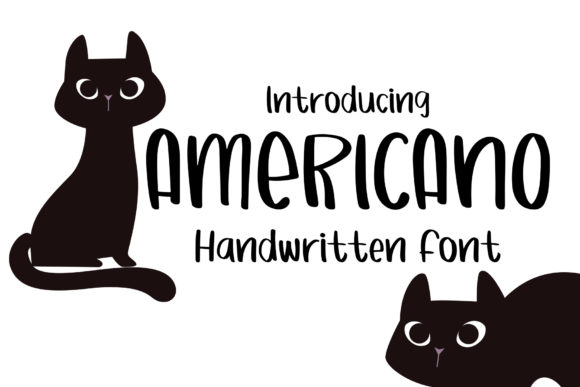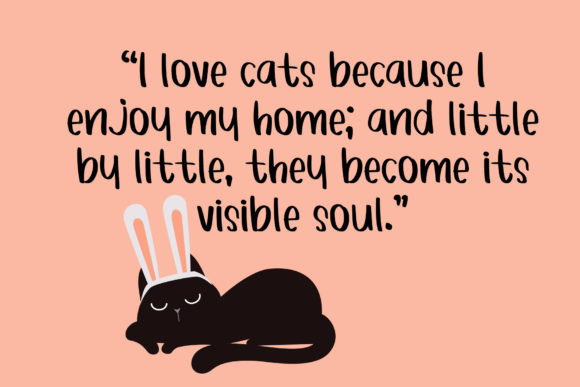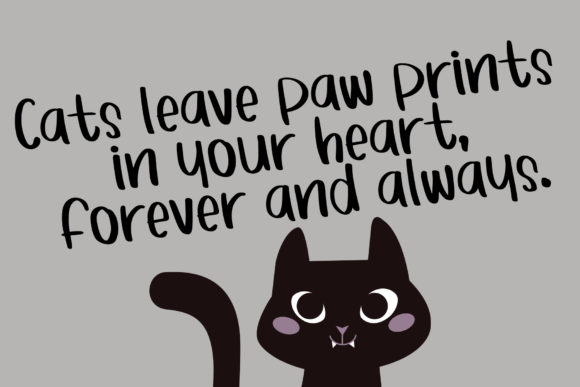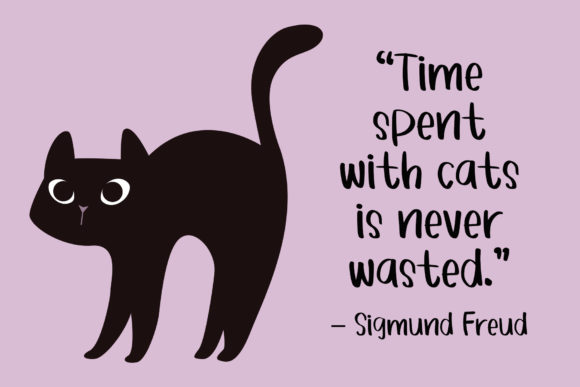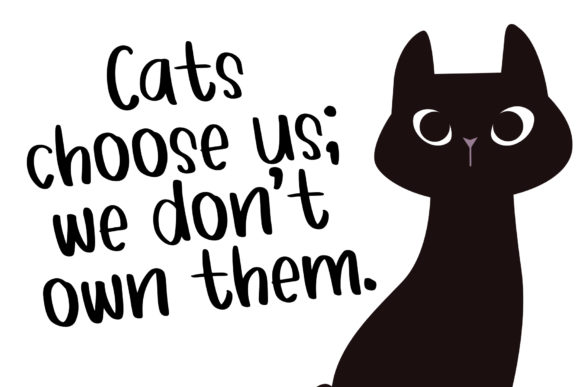
About Americano Font
Americano is a cute and playful handwritten font. It is ideal for assembling fairy tales content, paper events, menu designs and so much more.